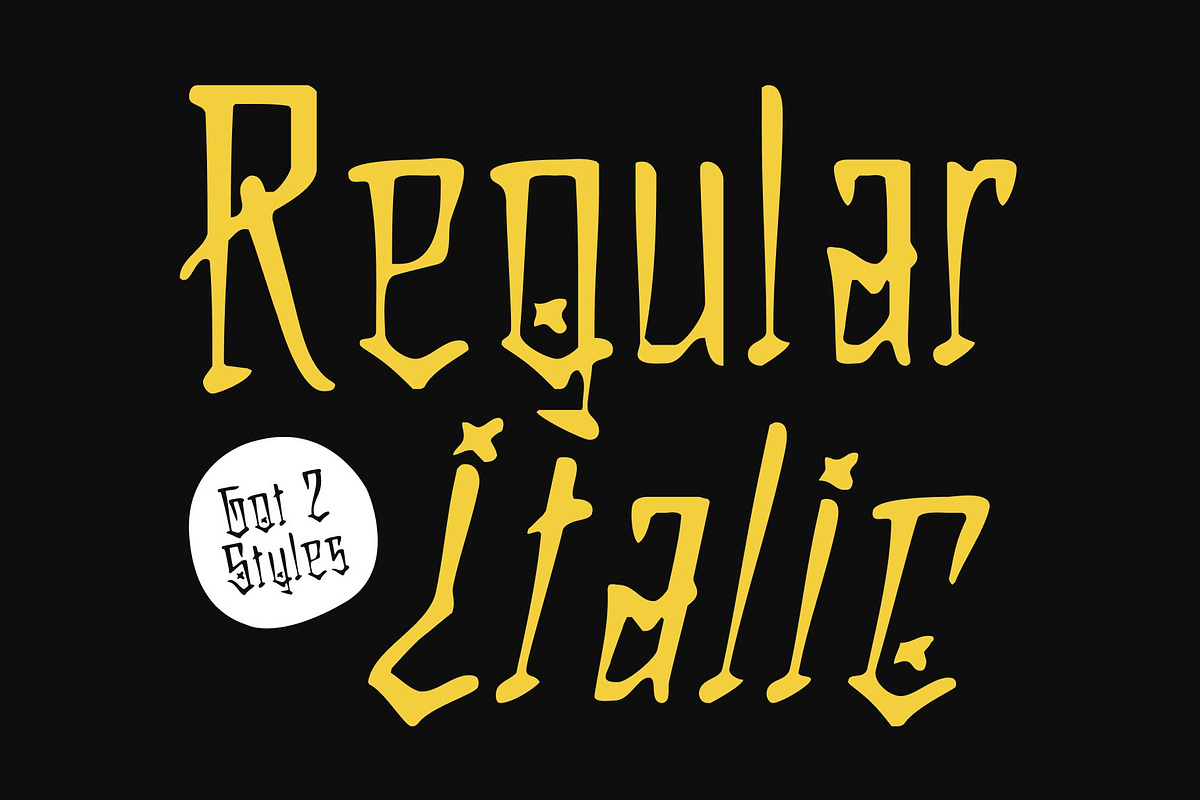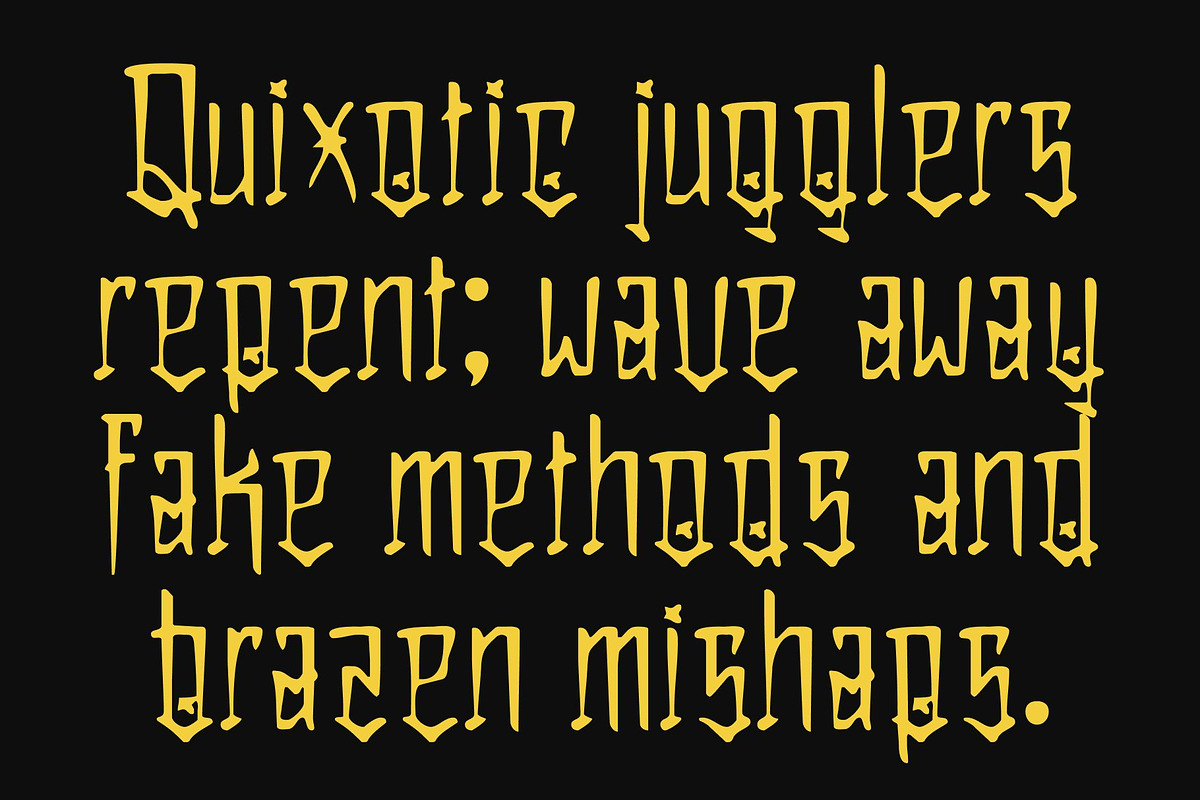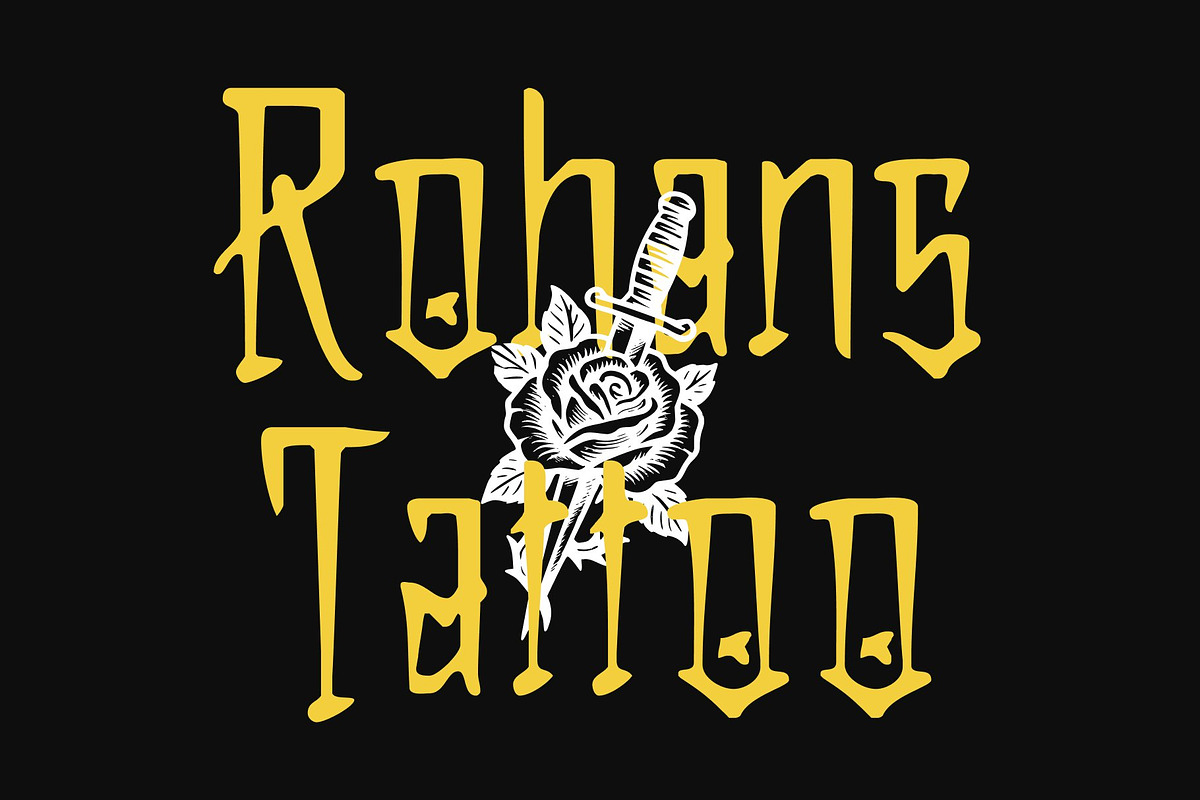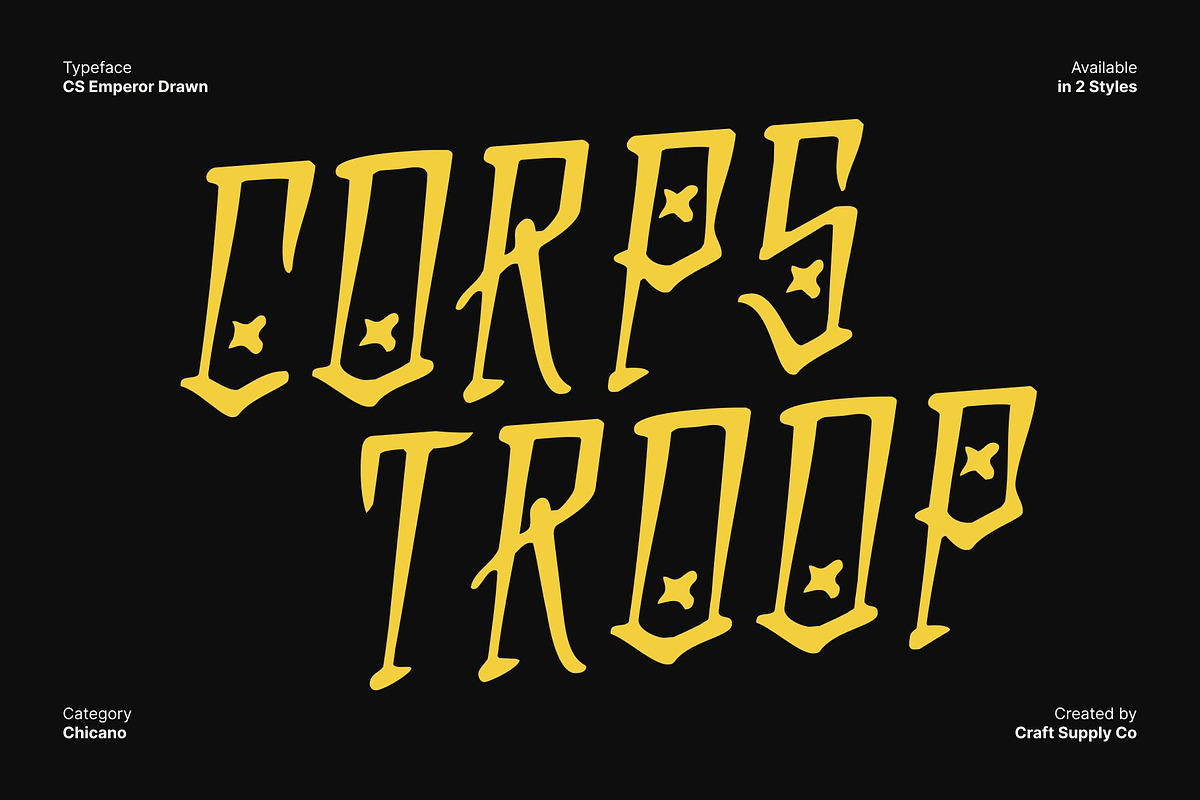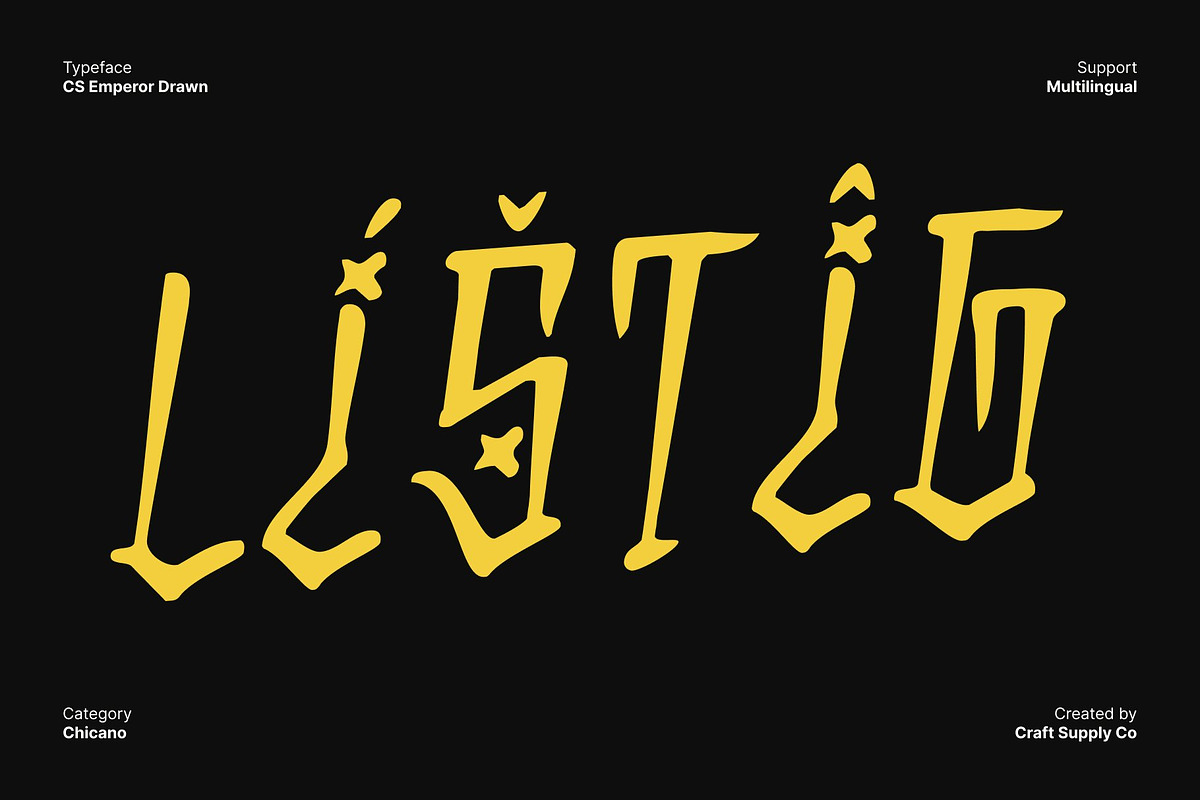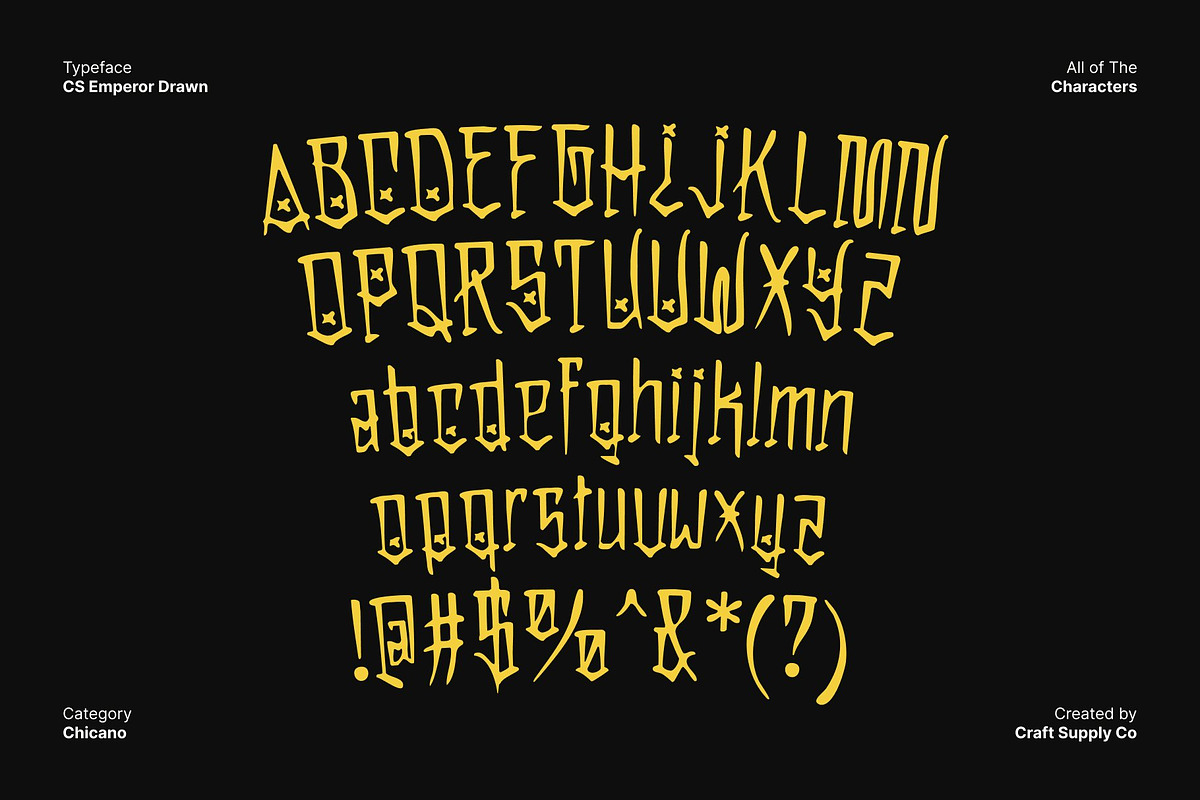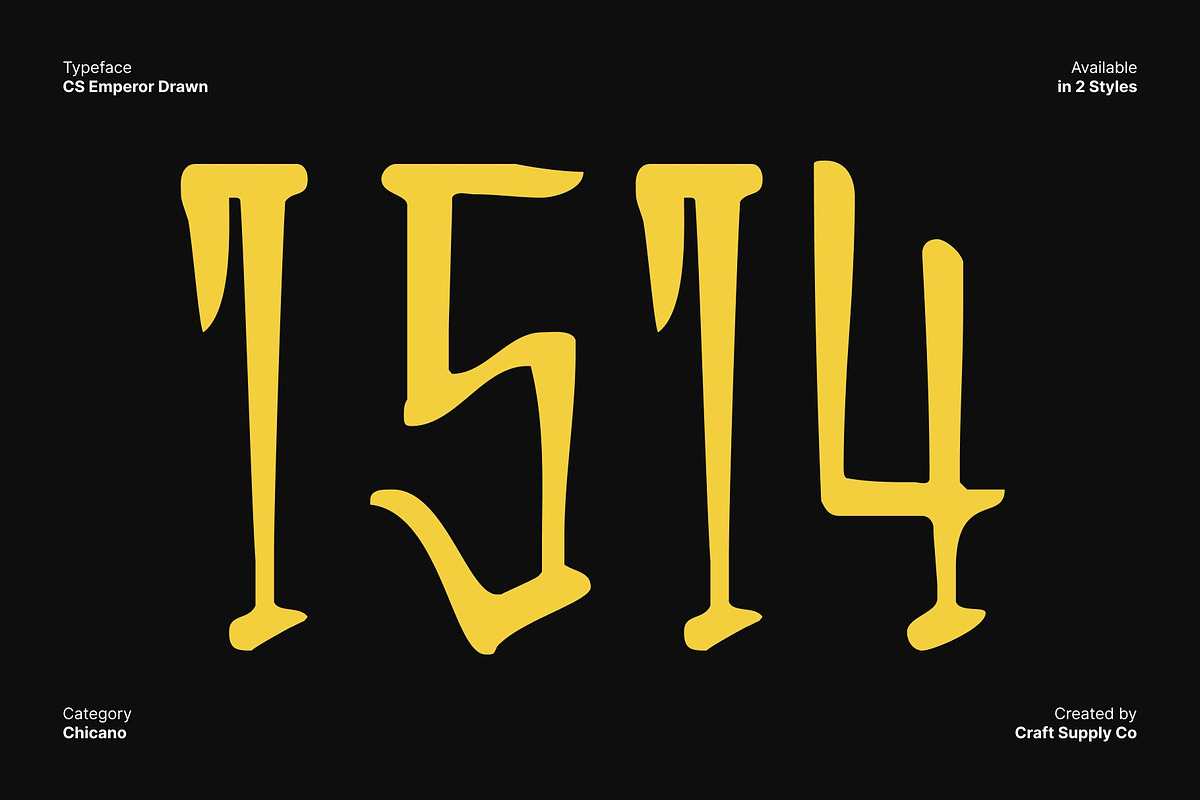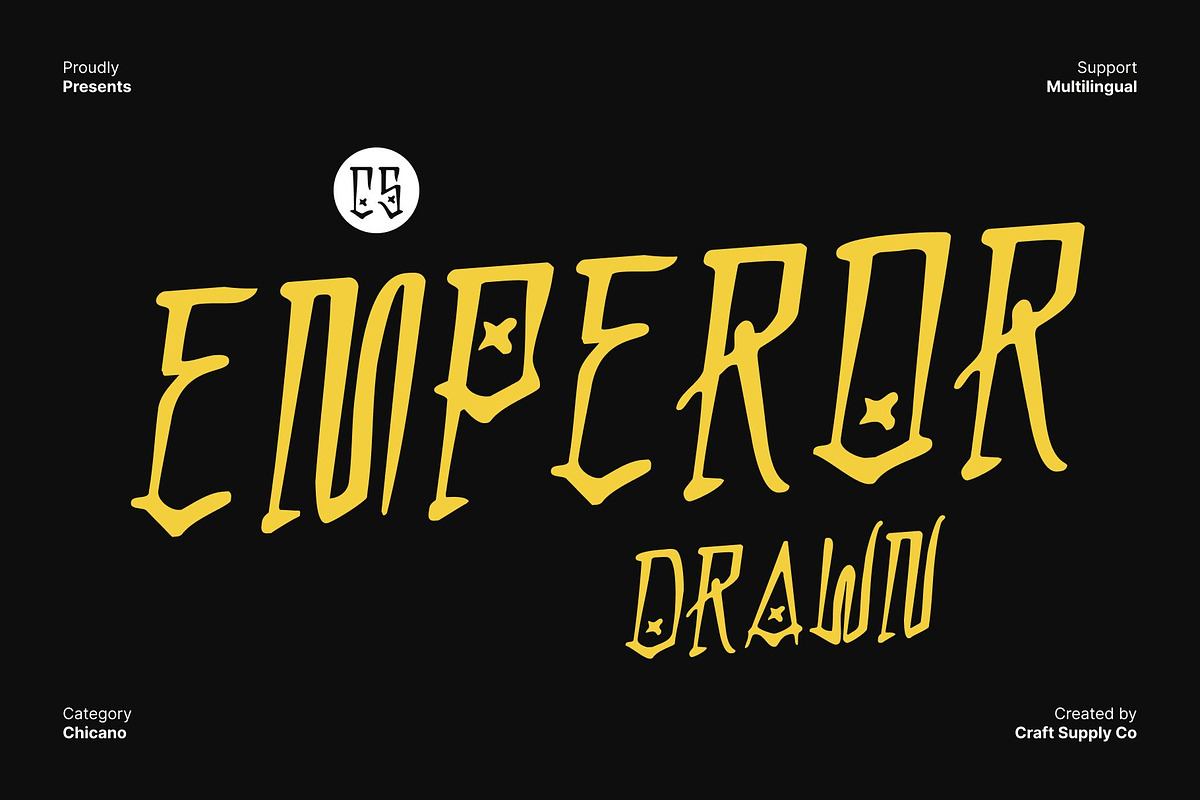
CS Emperor Drawn
CS Emperor Drawn – Chicano Graffiti Inspired Font with Bold Urban Expression Urban Craftsmanship with Decorative Strokes This is a display font shaped by the bold spirit of Chicano graffiti culture. Its decorative strokes deliver attitude, presence, and unmistakable street-style character. Every curve and flourish is crafted to feel expressive and intentional, giving your designs a dynamic personality that instantly captures attention. Hand-Drawn Texture for Authentic Expression Built with a drawn handmade touch, this font carries the raw charm of lettering created directly with pen and motion. The textured edges and crafted imperfections enrich the typeface with genuine emotion, making each letter feel alive. This human crafted feel enhances authenticity, perfect for projects that want to communicate creativity, individuality, and bold artistic expression. Bold Forms for Eye Catching Designs Designed with impactful shapes, this font amplifies presence and visibility. Its confident letterforms make it highly suitable for posters, music design, album covers, streetwear branding, and cultural event graphics. The bold style commands attention while still remaining readable, allowing designers to create visuals that feel powerful, and vibrant. Perfect for Branding That Celebrates Culture and Energy For brands that emphasize identity, creativity, and expressive storytelling, this font delivers the ideal typographic voice. Its graffiti-inspired roots bring cultural richness, while its handmade qualities highlight originality. Use it to build branding that celebrates urban heritage, artistic energy, and bold visual impact. * Download Type Speciment: * --- What you get : - CS Emperor Drawn Regular - CS Emperor Drawn Italic Features : - Uppercase and lowercase characters - Numerals and Punctuation (OpenType Standard) - Accents (Supports Multilingual Characters) - PUA Encoding --- You can use this typeface without needing any specialized software.* --- If you have any inquiries or need assistance, please feel free to contact us. We appreciate your support in enhancing your creative projects! Best regards, Craft Supply Co.